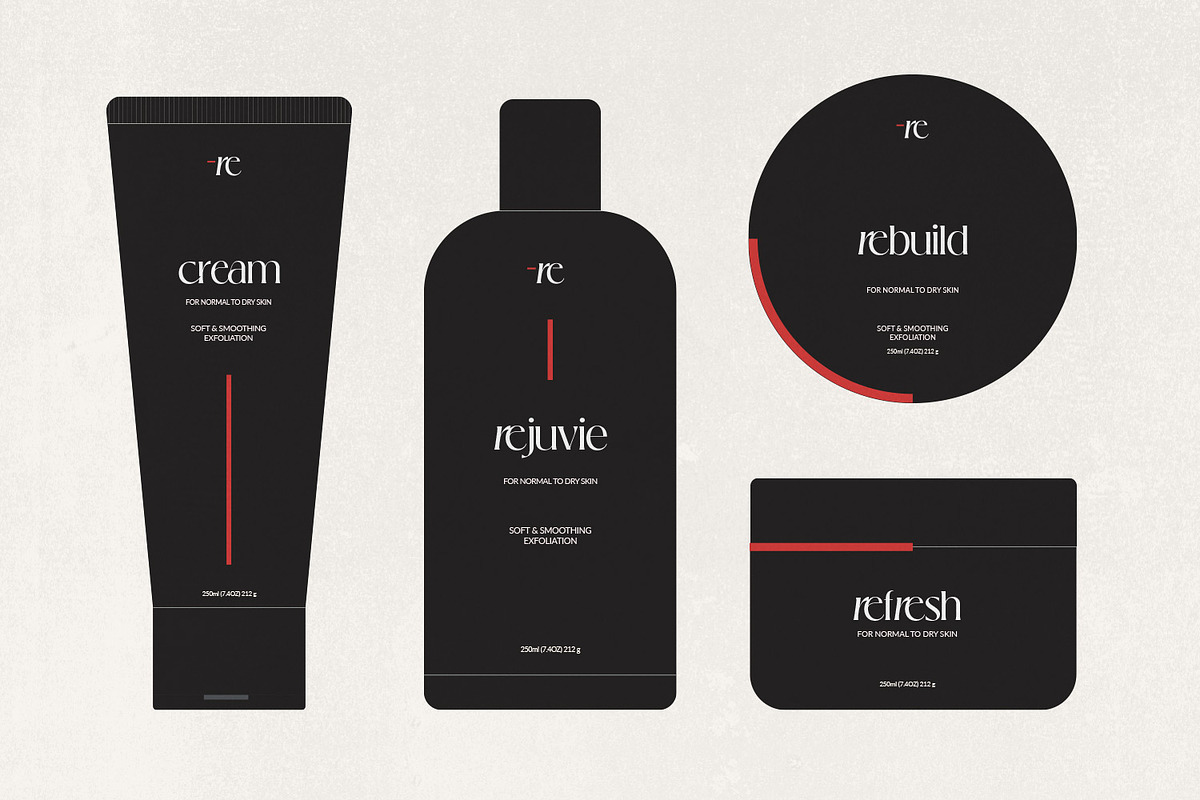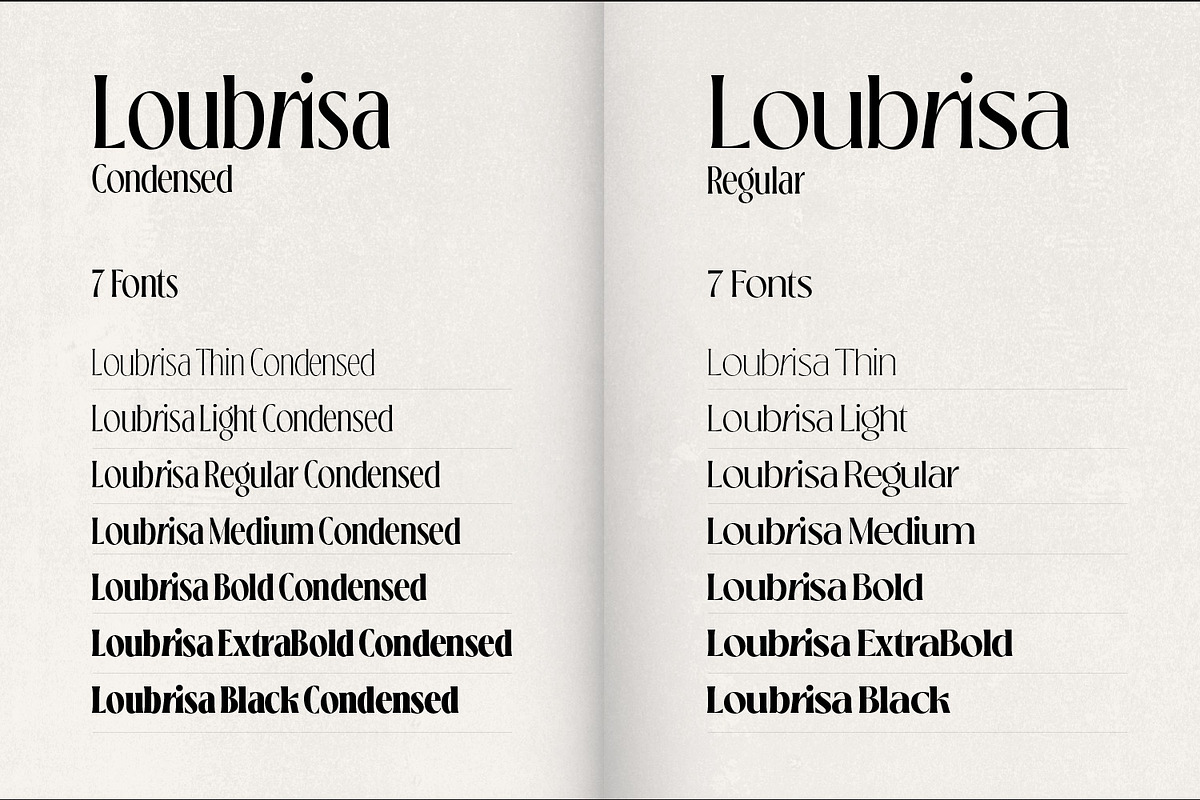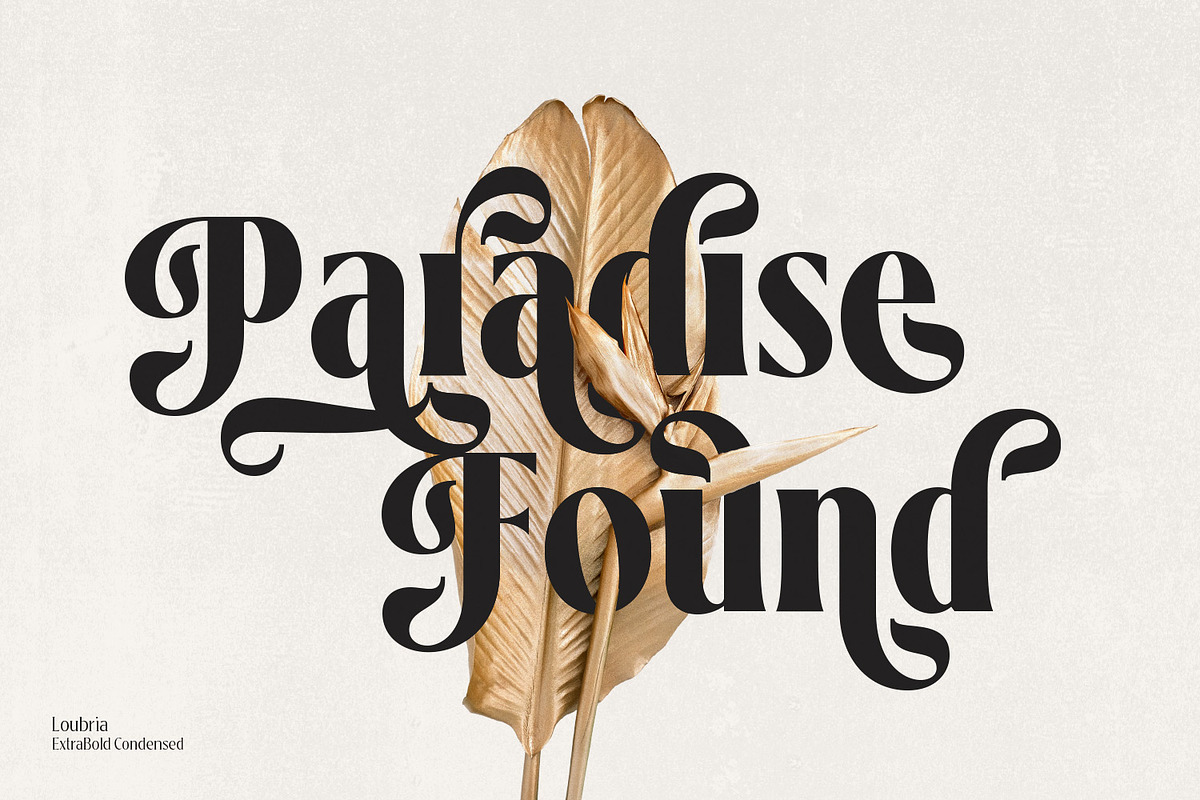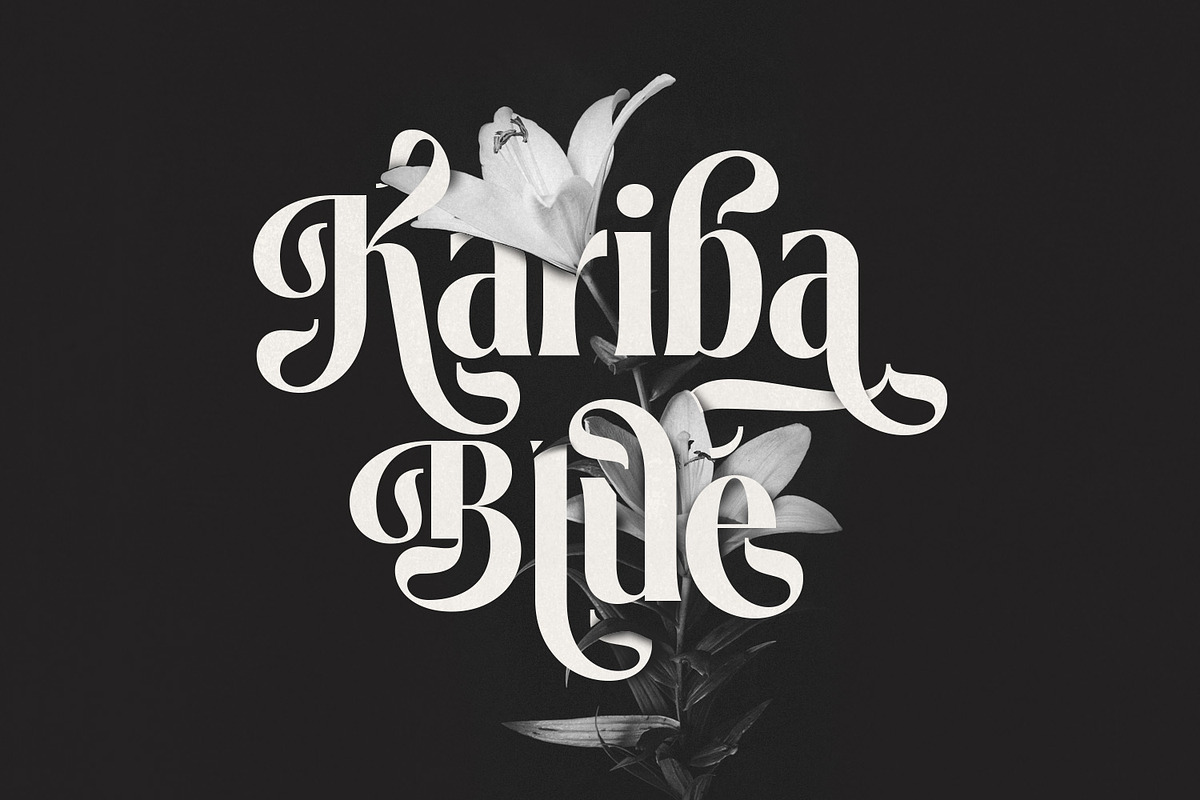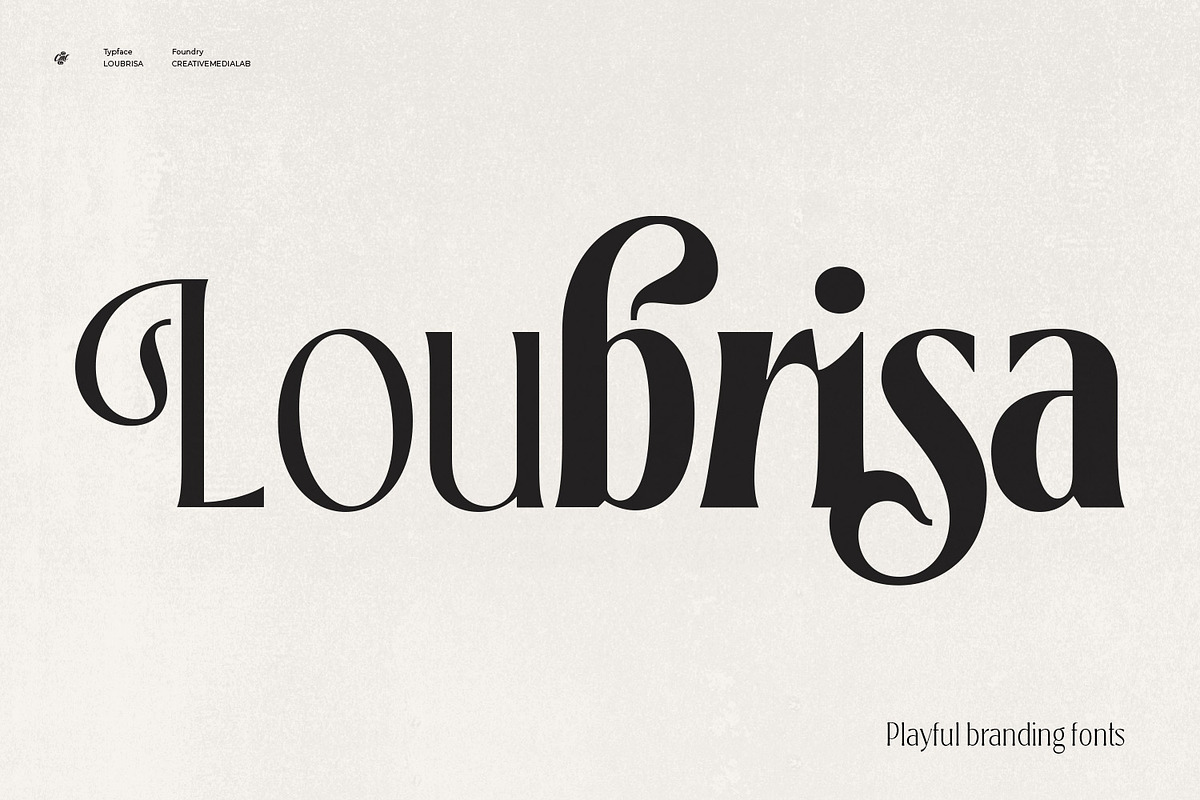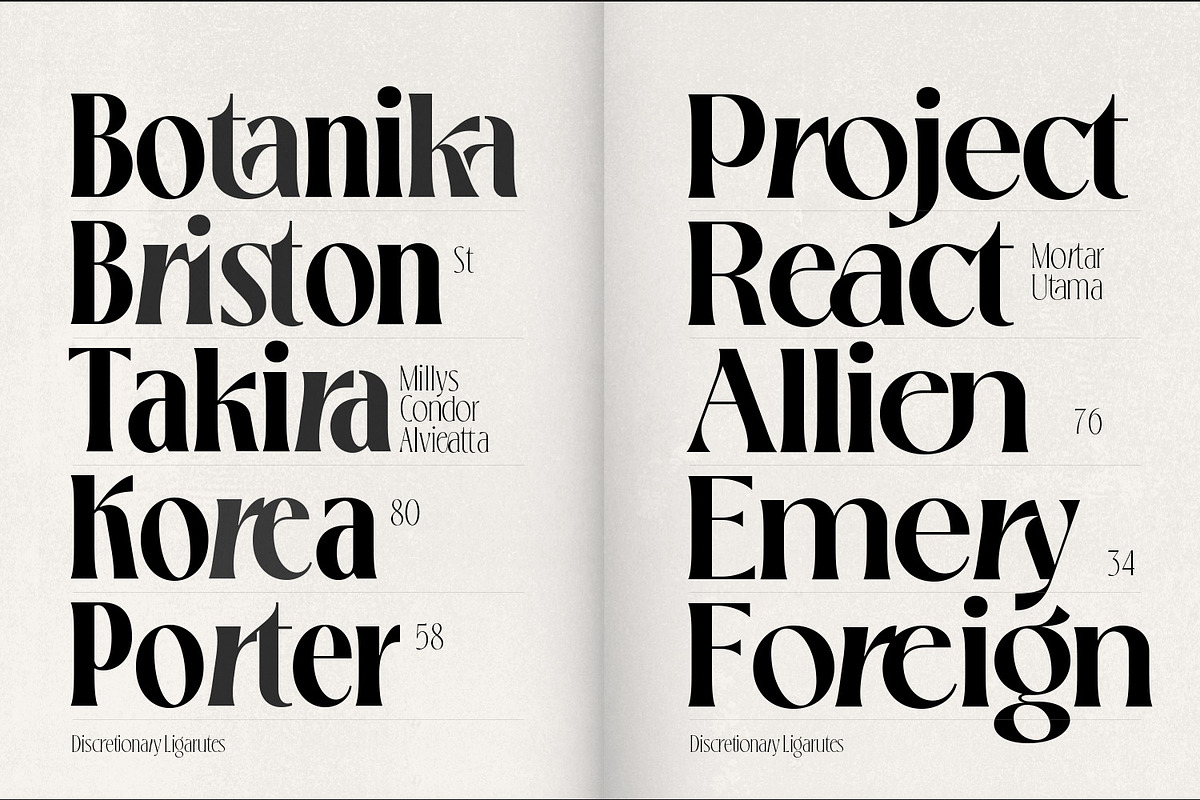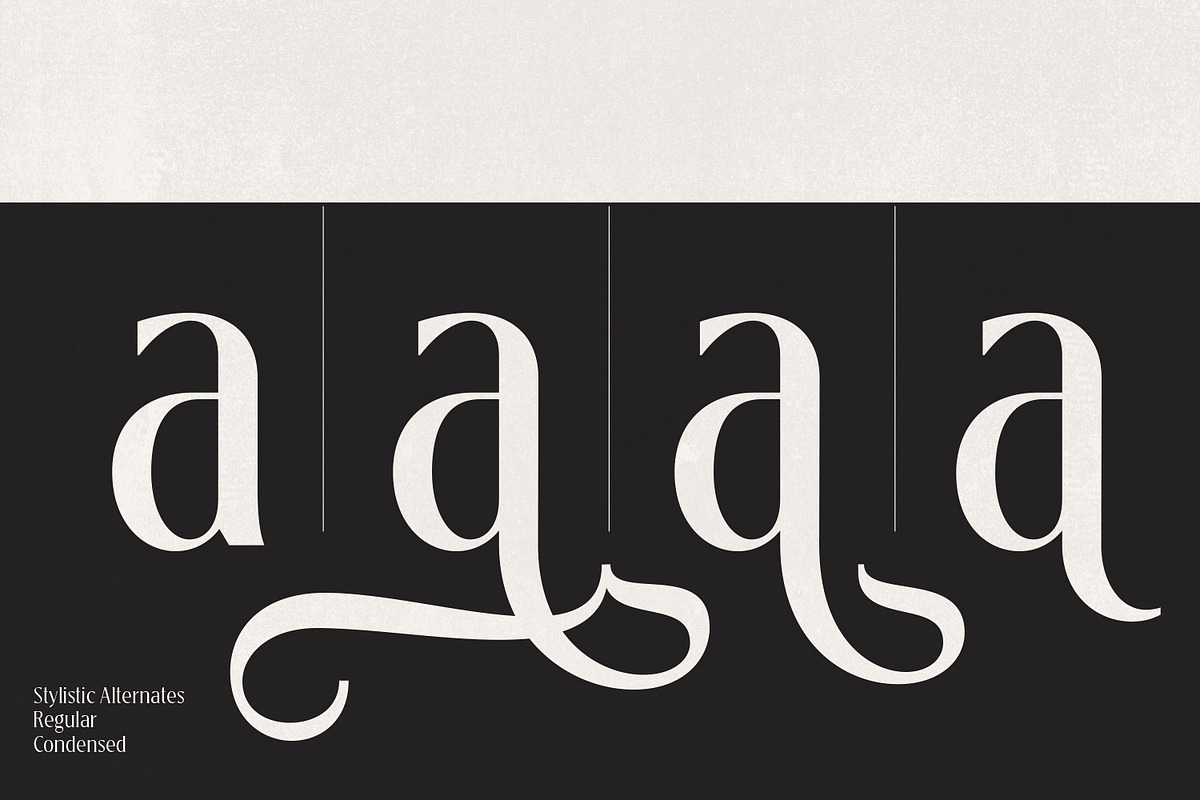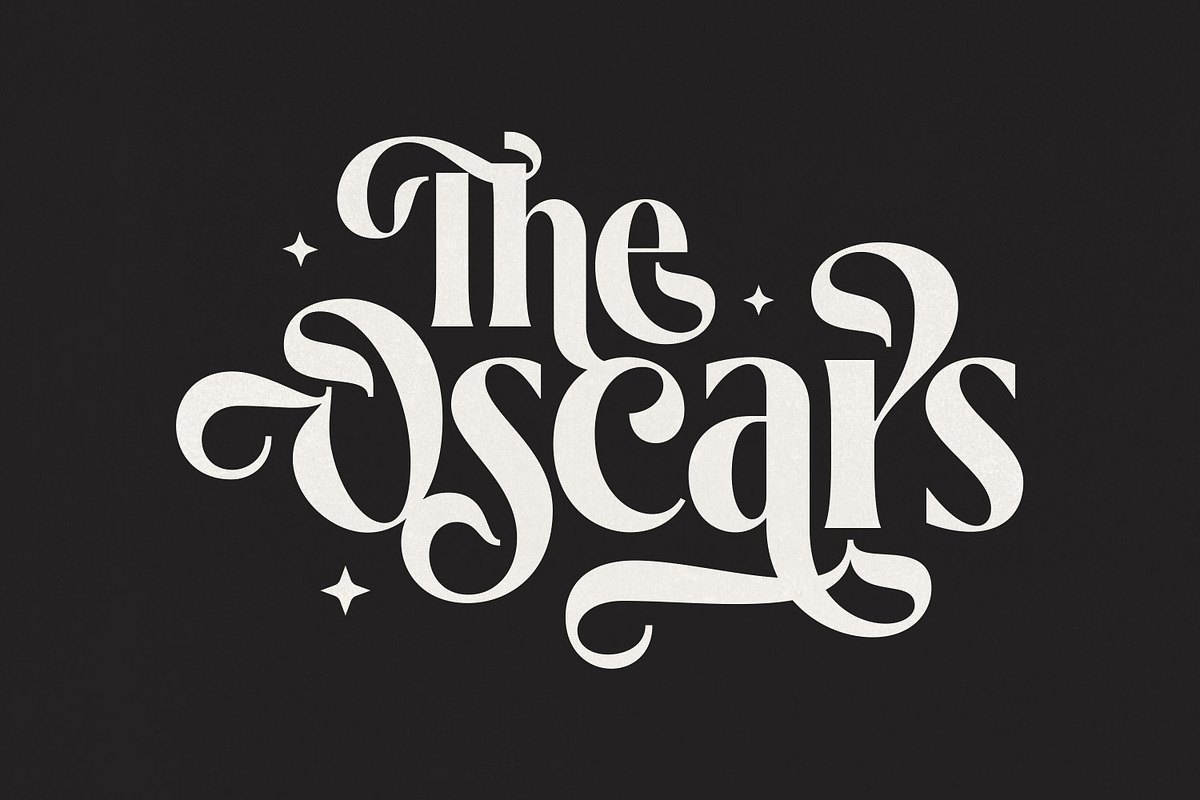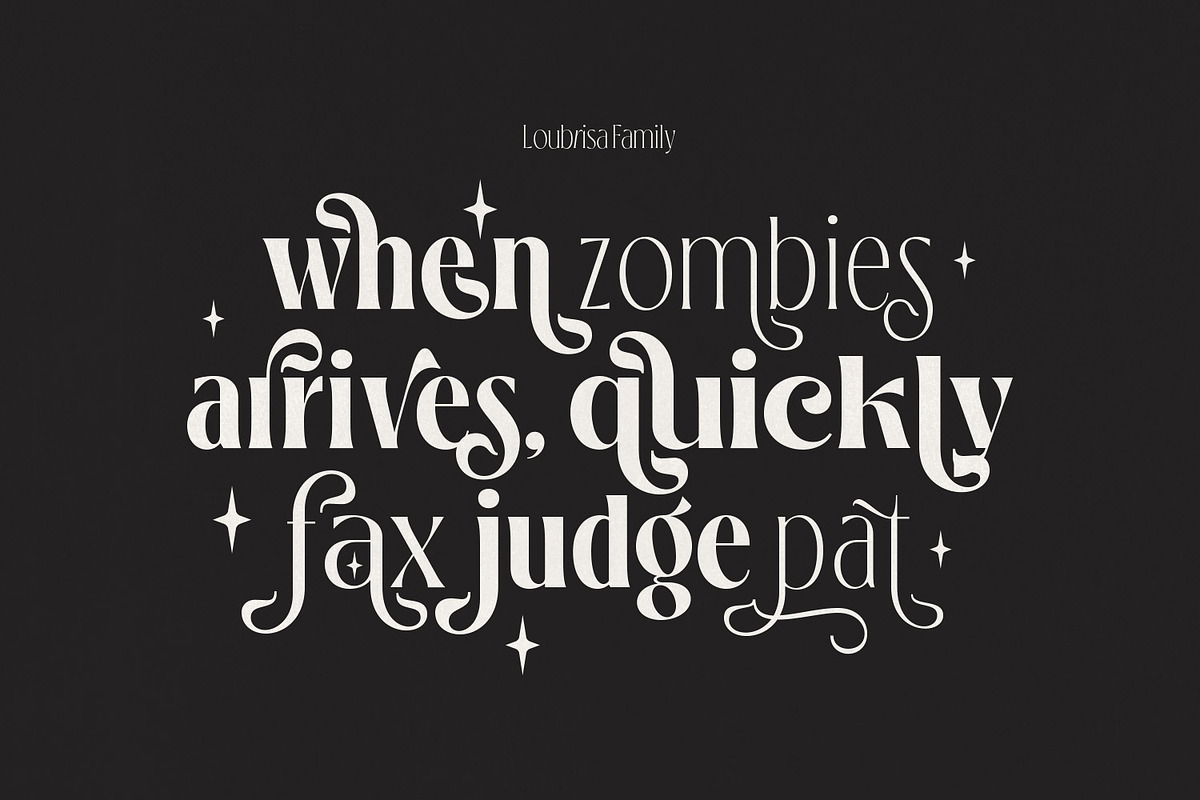
Loubrisa - Playful Branding Fonts
Introducing Loubrisa, an elegant and playful serif family, available in 2 widths, Condensed & Normal with a weight of 7 for each type.
Loubrisa has many stylistic alternatives and ligatures, suitable for Titles or concepts related to fashion, cosmetics, elegant design or high-end branding, logos, and many more.